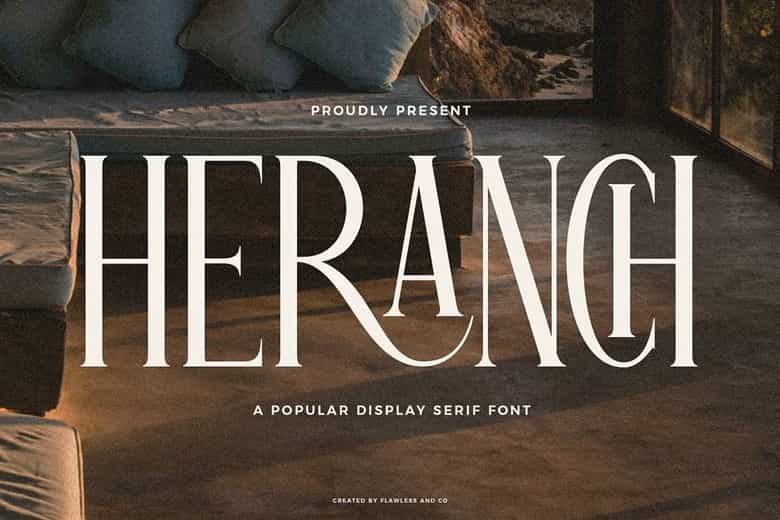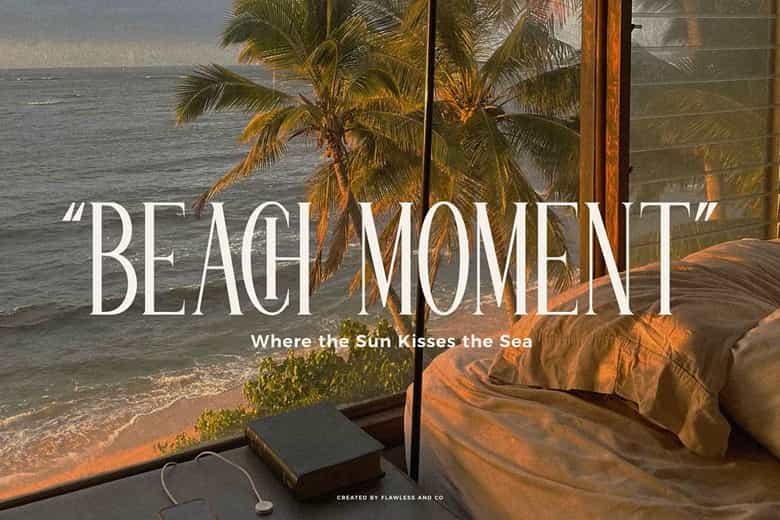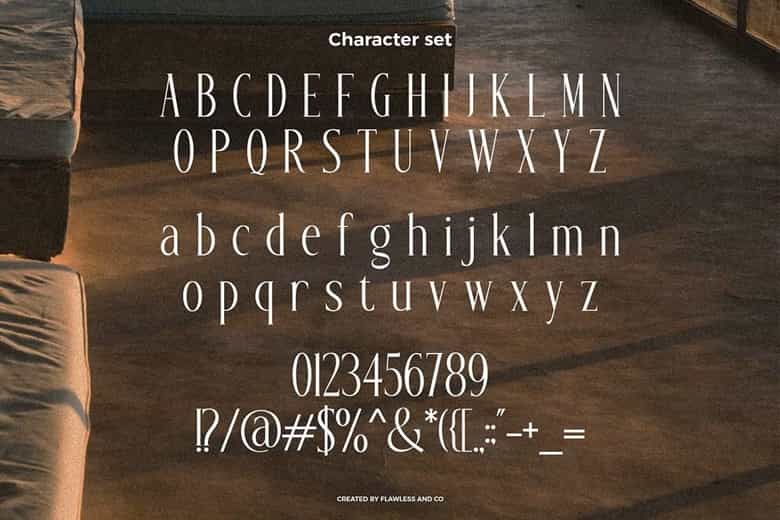
Heranch presents an elegant serif design that combines dramatic refinement with ancient heritage elements. Heranch delivers display excellence through its contrasting elements and detail-carved serifs which suit editorial needs as well as boutique creations and upscale packaging.